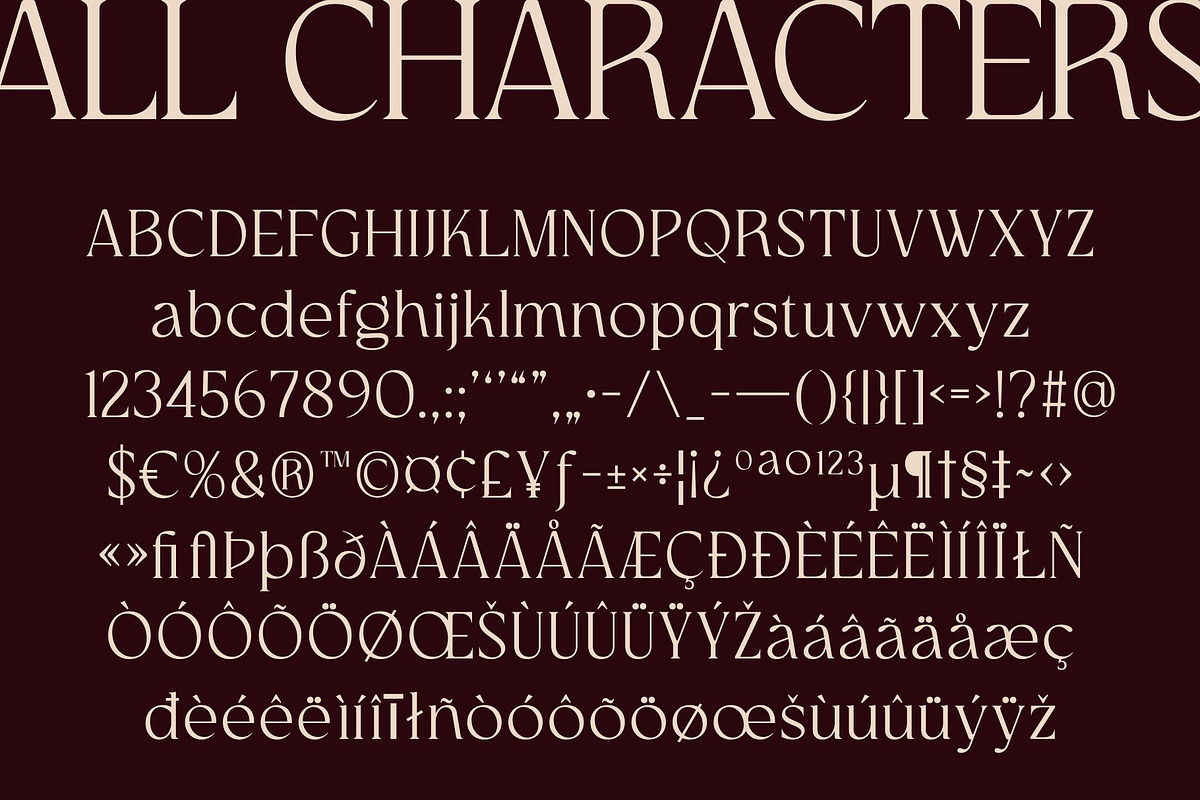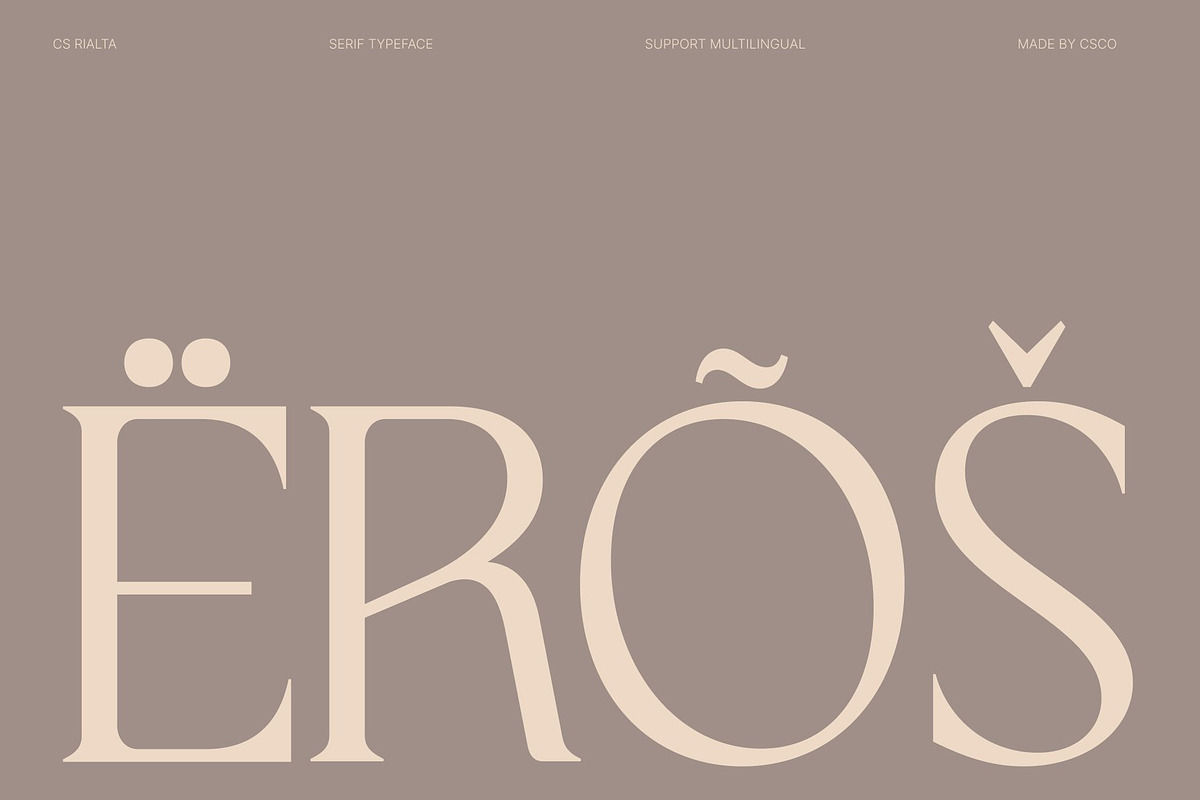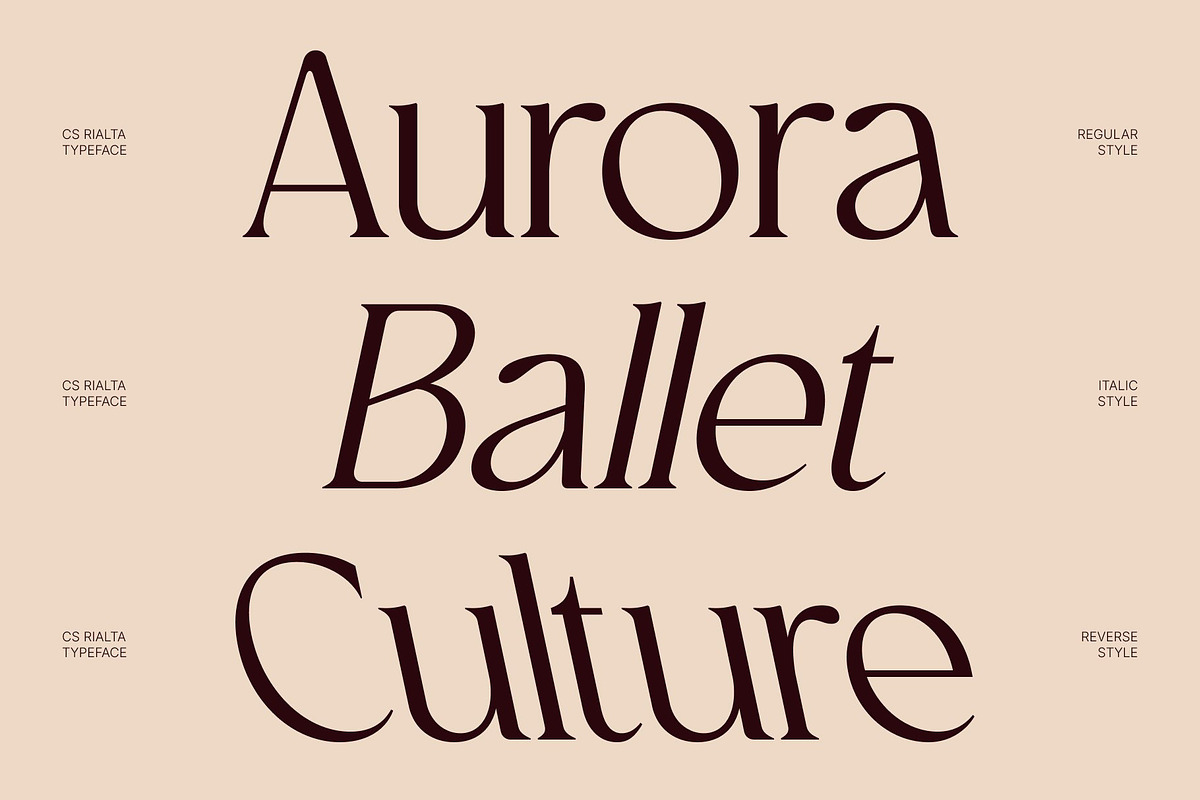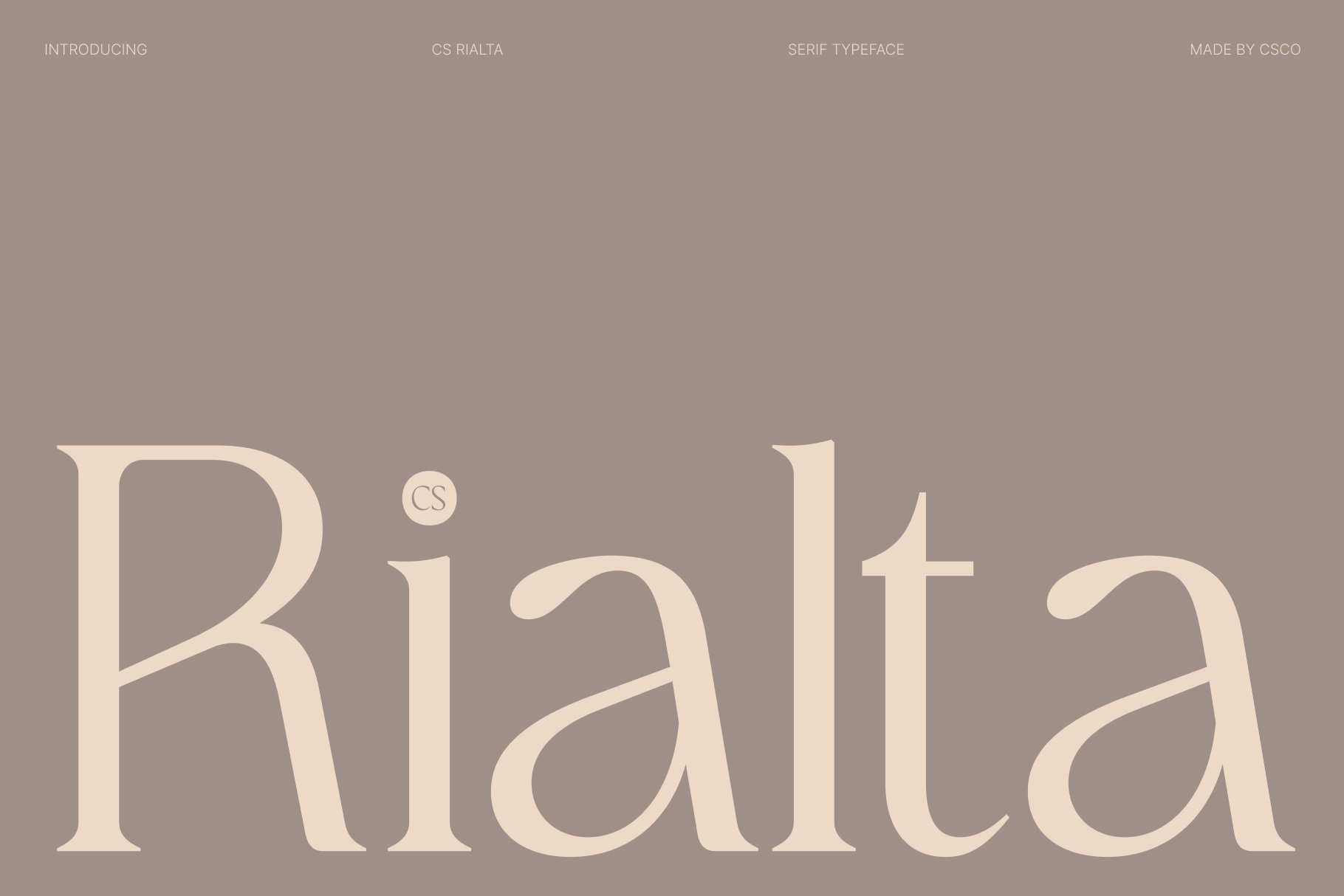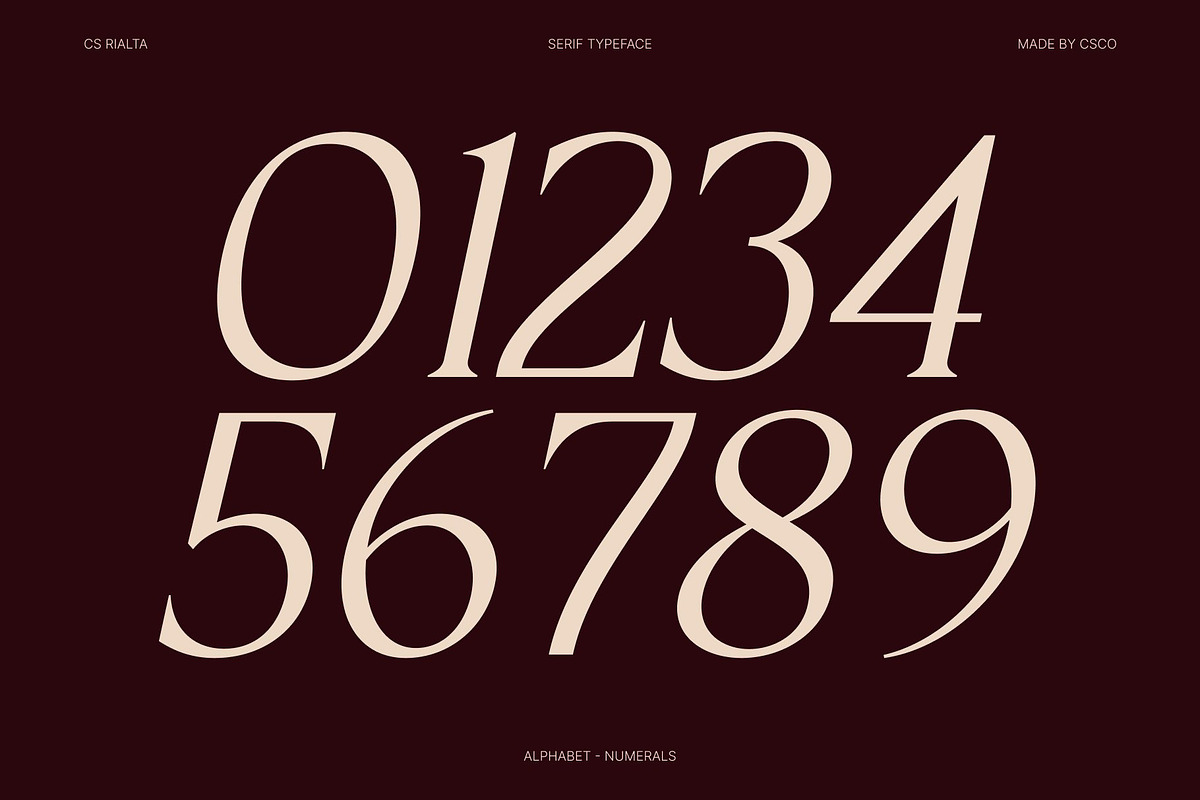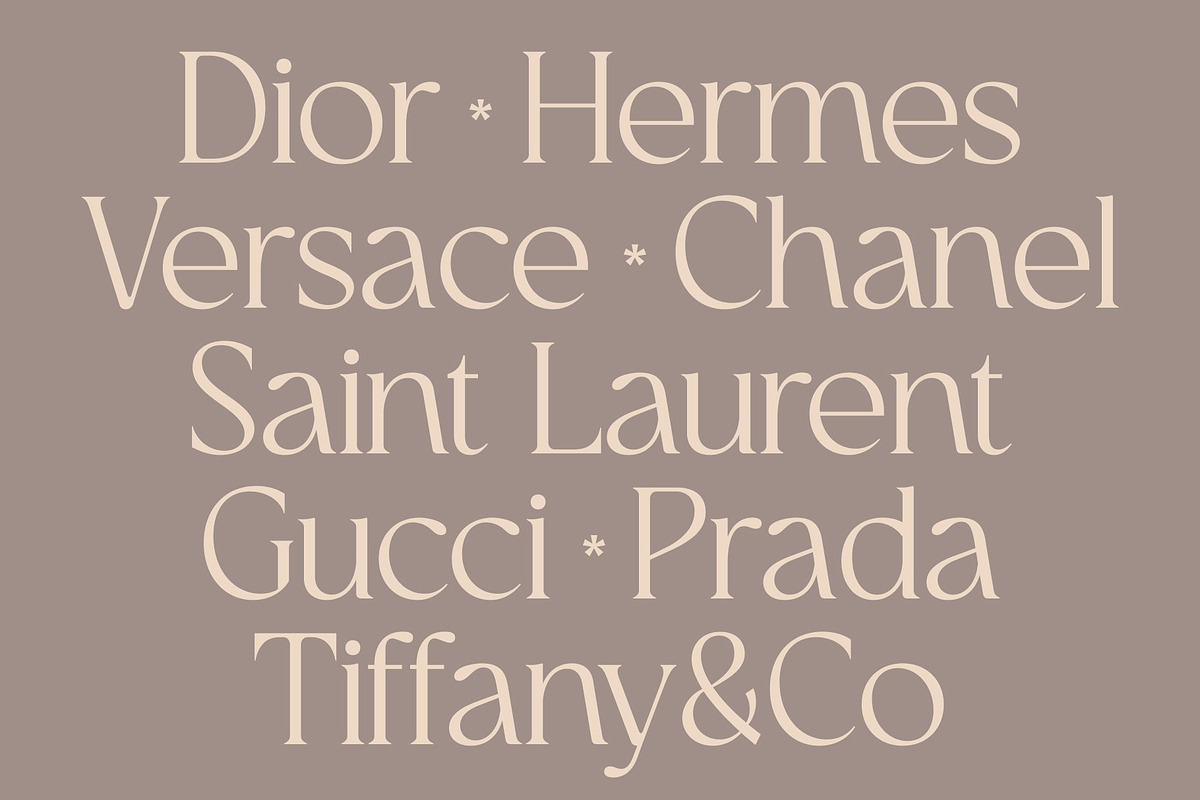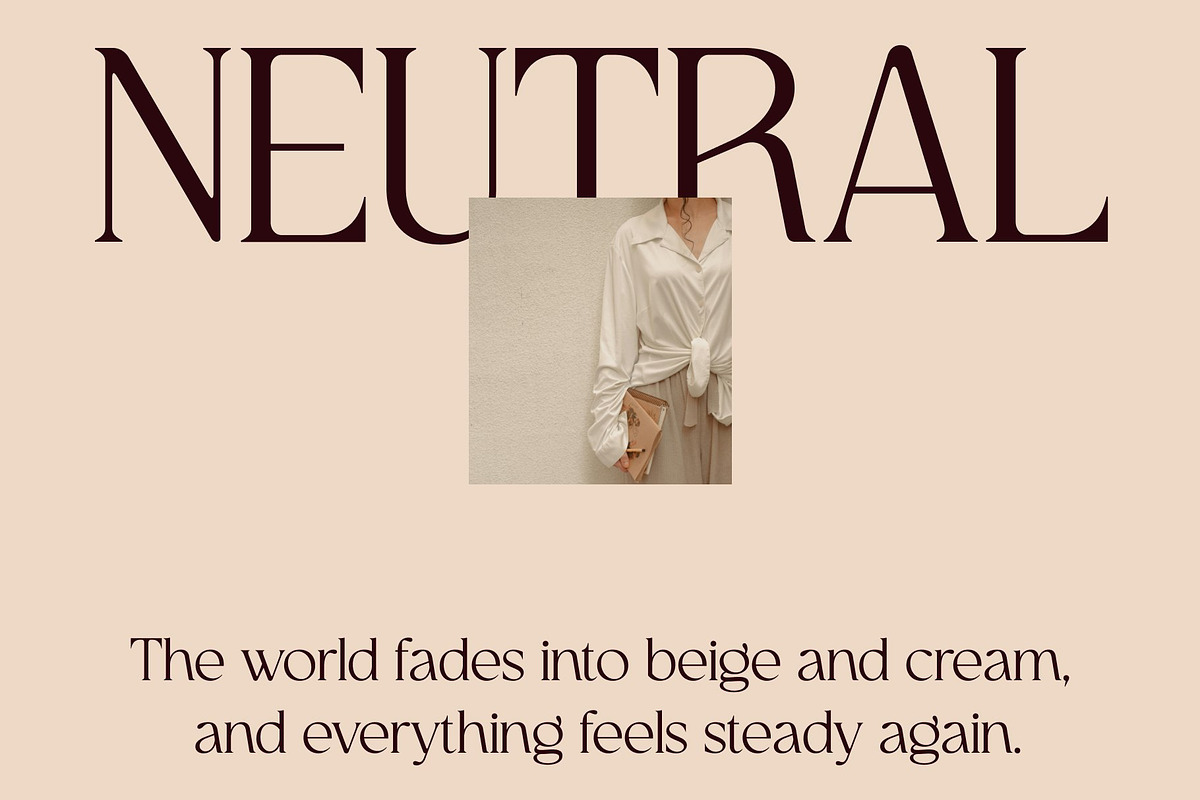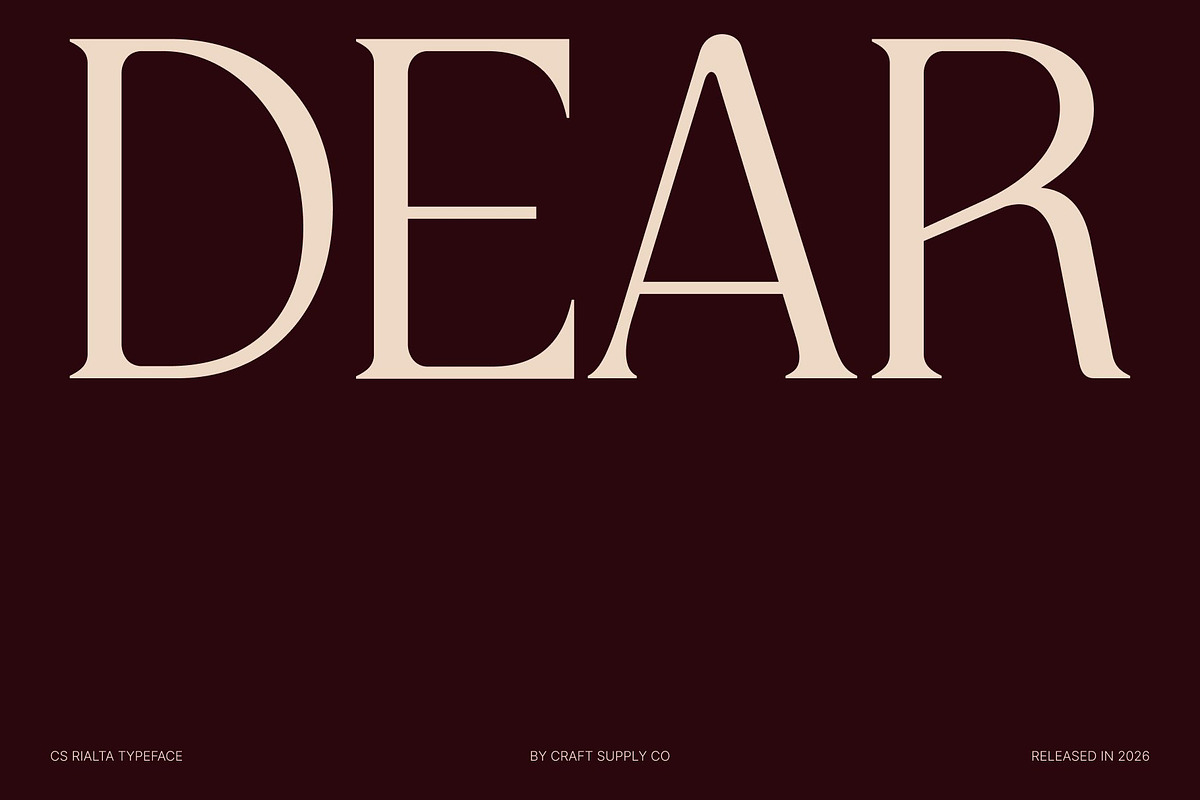
Rialta – Elegant Serif Font
CS Rialta – Modern Serif with Timeless Sophistication
Modern Serif with Clean Classic Character This is a modern serif font that blends timeless elegance with contemporary clarity. Designed to convey professionalism and refined taste, this typeface offers a balanced structure that feels both classic and current. Its graceful proportions and thoughtful detailing make it an excellent choice for designers seeking a sophisticated and polished typographic voice.
Timeless Shapes with Contemporary Precision The letterforms of this font are carefully crafted to deliver clarity and confidence in every character. Clean lines and balanced serifs create a harmonious rhythm that enhances readability while maintaining an elegant presence. This refined construction allows the font to perform beautifully in both large headlines and extended text, ensuring a consistent and professional look across every design.
Elegant Presence for Professional Visual Identity This font a sense of authority and credibility to any project. Its timeless aesthetic communicates trust, stability, and refinement, making it particularly suitable for brands that want to appear reliable and high-end. The subtle contrast and smooth curves provide a graceful visual flow that enhances the overall composition without overwhelming it.
Perfect for Branding, Editorials, and Visual Storytelling Whether used in branding, posters, editorial layouts, or marketing materials, this font offers versatility and enduring appeal. It adapts effortlessly to modern and classic themes alike, giving designers the flexibility to craft cohesive and elegant visual identities.
CS Rialta Regular
CS Rialta Italic
CS Rialta Reverse Italic